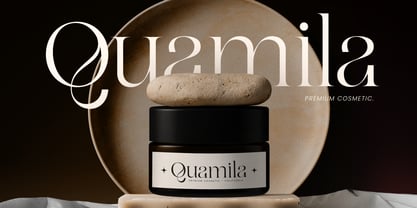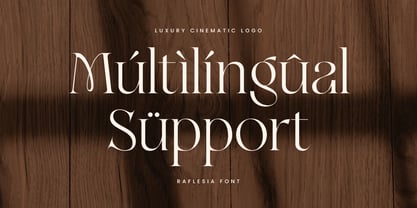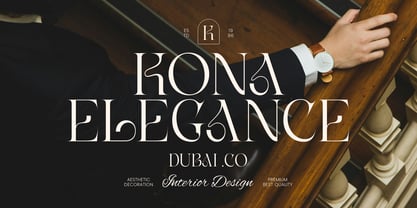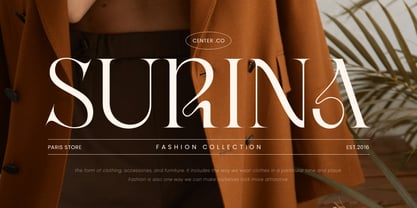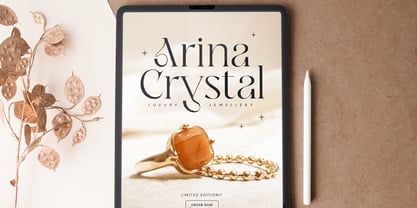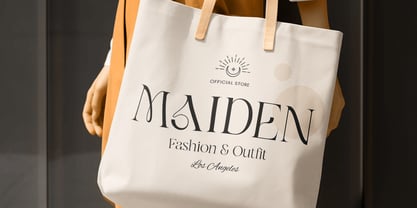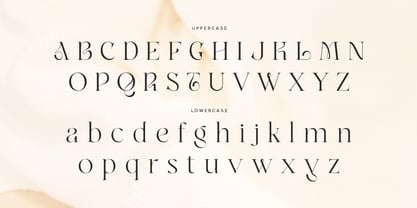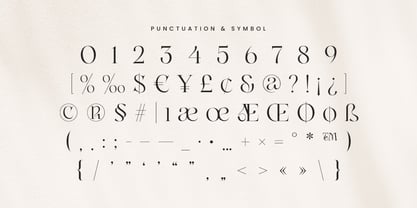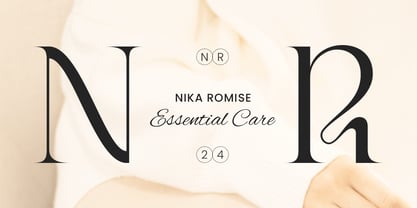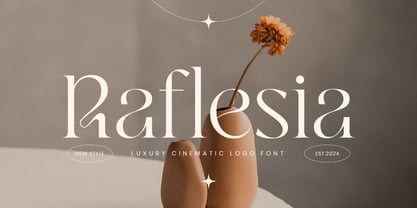
Raflesia SS
La familia tipográfica Raflesia SS fue diseñada por Zamroni Hamzah y publicada por Sensatype Studio. Raflesia SS contiene 2 estilos y opciones de paquete familiar. Más información sobre esta familia
Raflesia SS is a luxury cinematic font designed to bring elegance and sophistication to your high-end design projects. Inspired by the timeless beauty of classic cinema and the luxurious feel of high-end brands, Raflesia SS combines modern aesthetics with a touch of vintage glamour. This font is perfect for creating stunning logos, refined branding materials, and stylish designs that demand attention.
The Story Behind Raflesia SS:
Raflesia SS was crafted to embody the essence of luxury and cinematic allure. The font draws inspiration from the elegance of classic films and the sophistication of luxury brands. Whether you're working on a high-end logo, branding for a premium product, or creating cinematic posters, Raflesia SS provides the perfect blend of style and grace.
Raflesia SS Font Features:
• Elegant Design: Perfect for luxury branding, cinematic posters, and high-end projects.
• Versatile Usage: Ideal for logos, branding, headlines, and stylish designs.
• High Legibility: Ensures your message is communicated effectively with clear and sharp lettering.
• Cinematic Appeal: Combines modern aesthetics with a vintage touch to create a unique and memorable look.
• Inspirational Previews: Includes sample designs to spark your creativity and show the font's potential.
Elevate your design projects with Raflesia SS and bring a touch of cinematic luxury to your work.